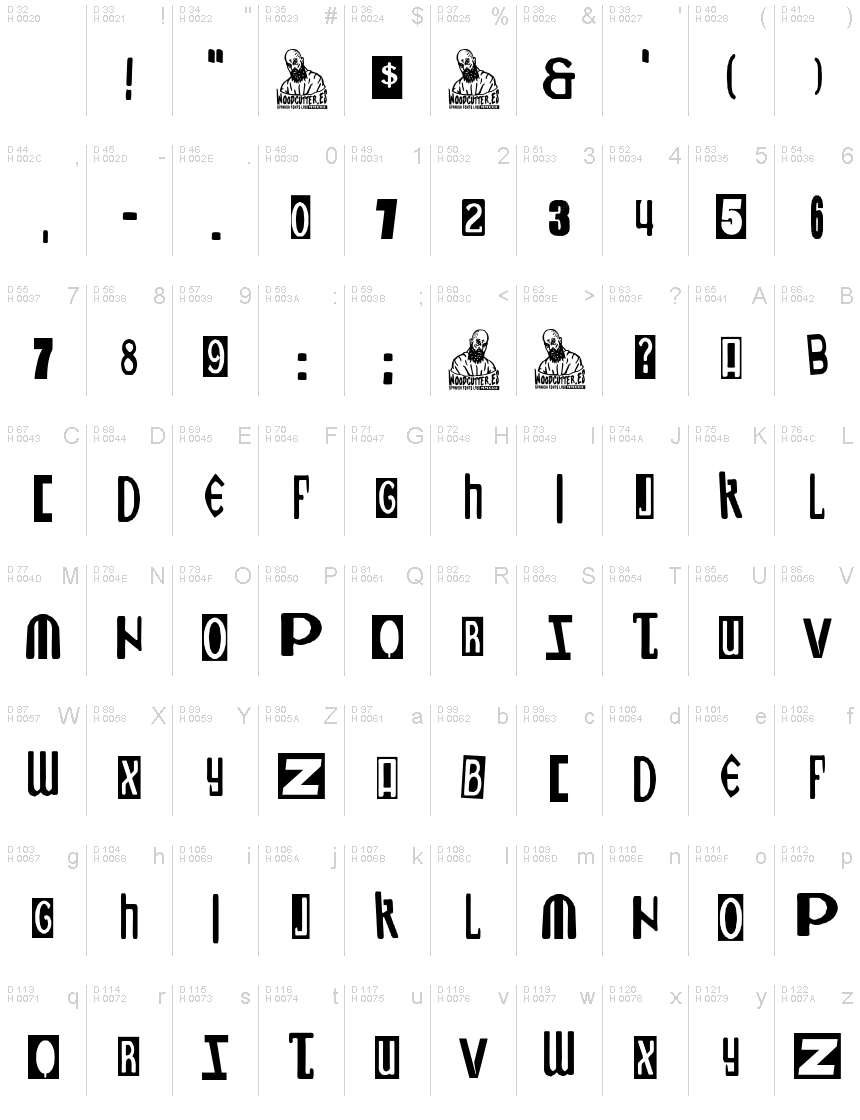
Ukranian White Punks
Ukranian White Punks by Woodcutter is a captivating display font that exudes a raw, anarchic energy. Its distorted letterforms and unconventional aesthetic evoke a sense of rebellious defiance, inviting the viewer to embrace the unconventional. The font's unorthodox structure and striking visual impact make it a compelling choice for those seeking to make a bold, unapologetic statement in their design work.
Ukranian White Punks' versatility extends beyond its punk-inspired roots. Its distinctive character lends itself well to a variety of applications, from edgy album covers and gig posters to impactful branding and editorial layouts. Designers seeking to infuse their projects with a raw, uncompromising spirit will find Ukranian White Punks a powerful tool to captivate their audience and leave a lasting impression.